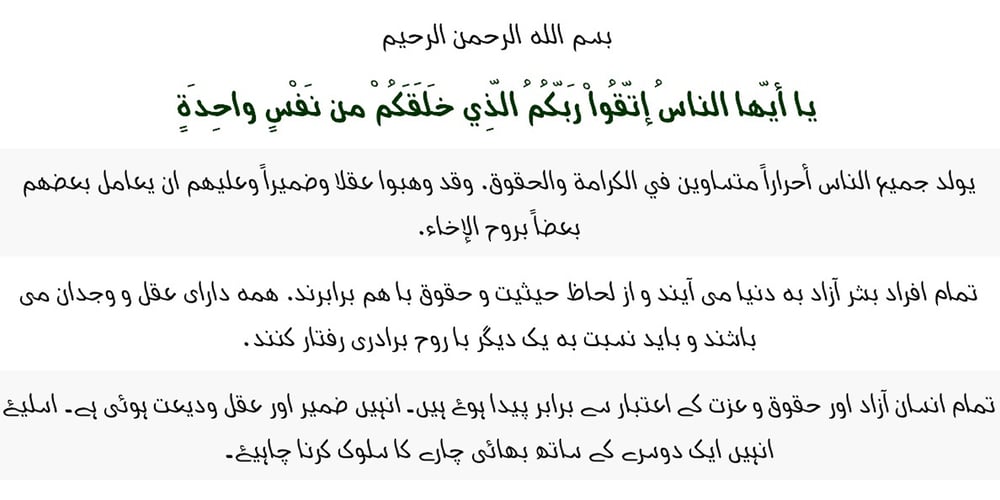
Nagham Font Family was designed by Saad D. Abulhab and published by Arabetics. Nagham contains 8 styles and family package options. Nagham was designed using uniform glyph thickness throughout and exaggerated letter heights to offer a vertical look and feel. It supports all Arabetic scripts covered by Unicode 6.1, and the latest Arabic Supplement and Extended-A Unicode blocks, including support for Quranic texts. This font family includes two letter spacing flavors: isolated for small text and overlapped for large or display text. The two flavors come with two weights, regular and bold, each of which has normal and left-slanted Italic versions. The script design of this font family follows the Arabetics Mutamathil Taqlidi style utilizing varying x-heights. The Mutamathil Taqlidi type style uses one glyph per every basic Arabic Unicode character or letter, as defined by the Unicode Standards, and one additional final form glyph, for each freely-connecting letter of the Arabic cursive text. Nagham includes the required Lam-Alif ligatures in addition to all vowel diacritic ligatures. Soft-vowel diacritic marks (harakat) are selectively positioned with most of them appearing on similar high and low levels—top left corner—, to clearly distinguish them from the letters. Tatweel is a zero-width glyph.